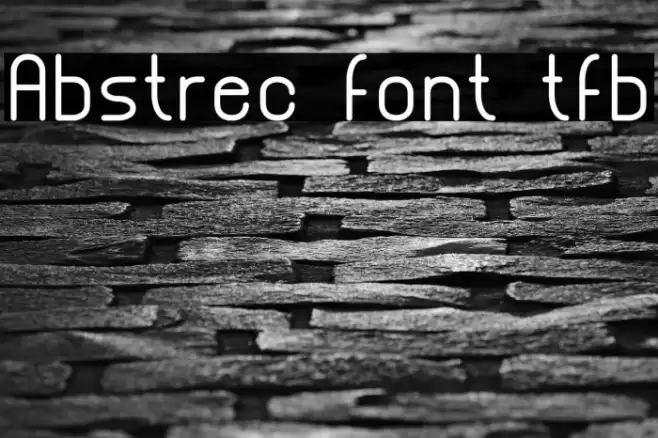
Abstrec font tfb Font
Abstrec font tfb Description
This font features a modern and clean design with rounded edges and a geometric structure. The characters are uniform in width, providing a balanced and harmonious appearance. The uppercase letters are slightly taller than the lowercase, maintaining a consistent line weight throughout. The numerals are clear and legible, matching the style of the alphabet. Special characters are designed with the same rounded and minimalistic approach, ensuring they blend seamlessly with the rest of the font. This typeface is versatile, suitable for both digital and print media, offering a contemporary and approachable aesthetic.
A modern, rounded geometric font with uniform width and clean lines from Uncategorized fonts.